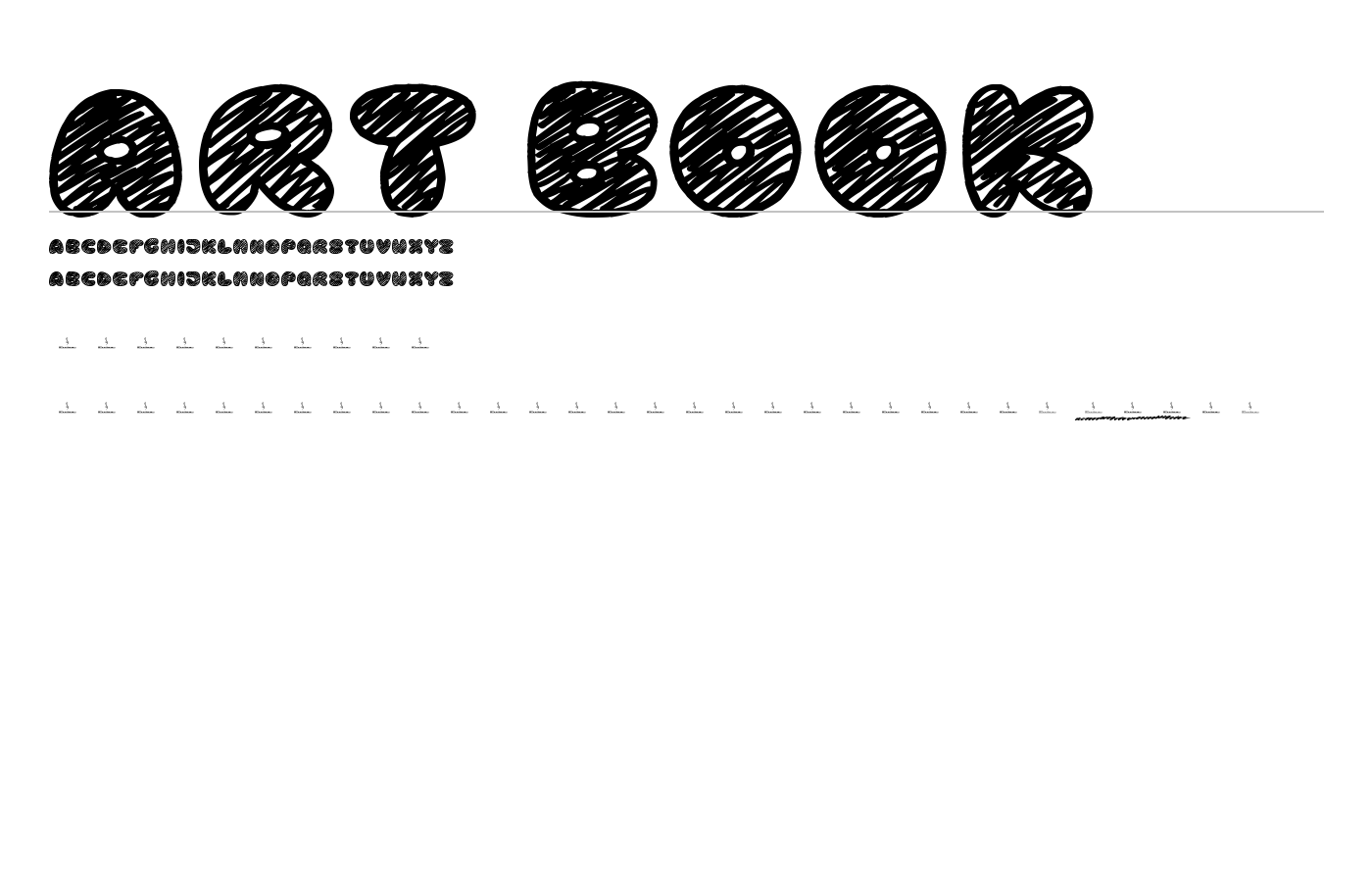
Art Book Font is a bold, playful sans serif typeface with a hand-drawn, sketch-like texture that brings a fun and creative vibe to any design. Its rounded, chunky letterforms with irregular shading make it perfect for informal projects, children’s materials, and artistic branding where personality and originality are key. This font works best in headlines and display uses where its unique texture and charm can stand out and capture attention.
Art Book Font
About Art Book Font
| Font family | Art Book Font |
| Designer | Jonathan S Harris |